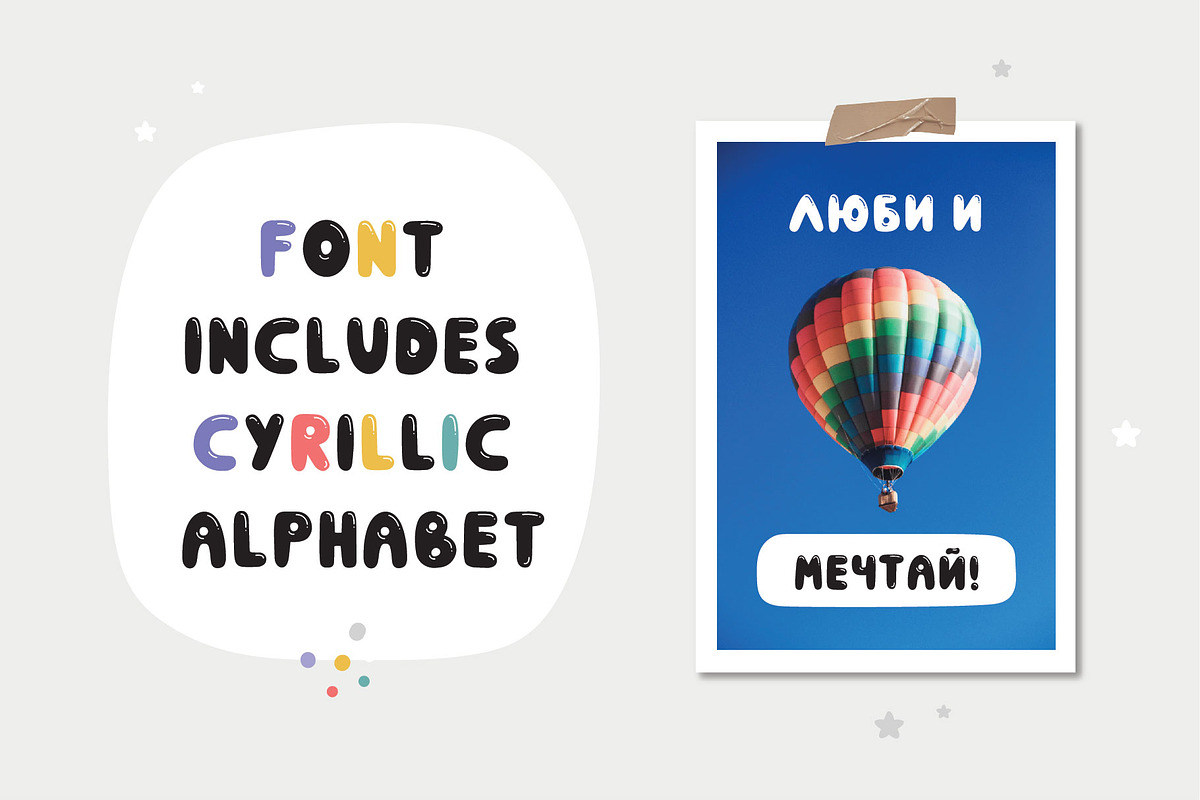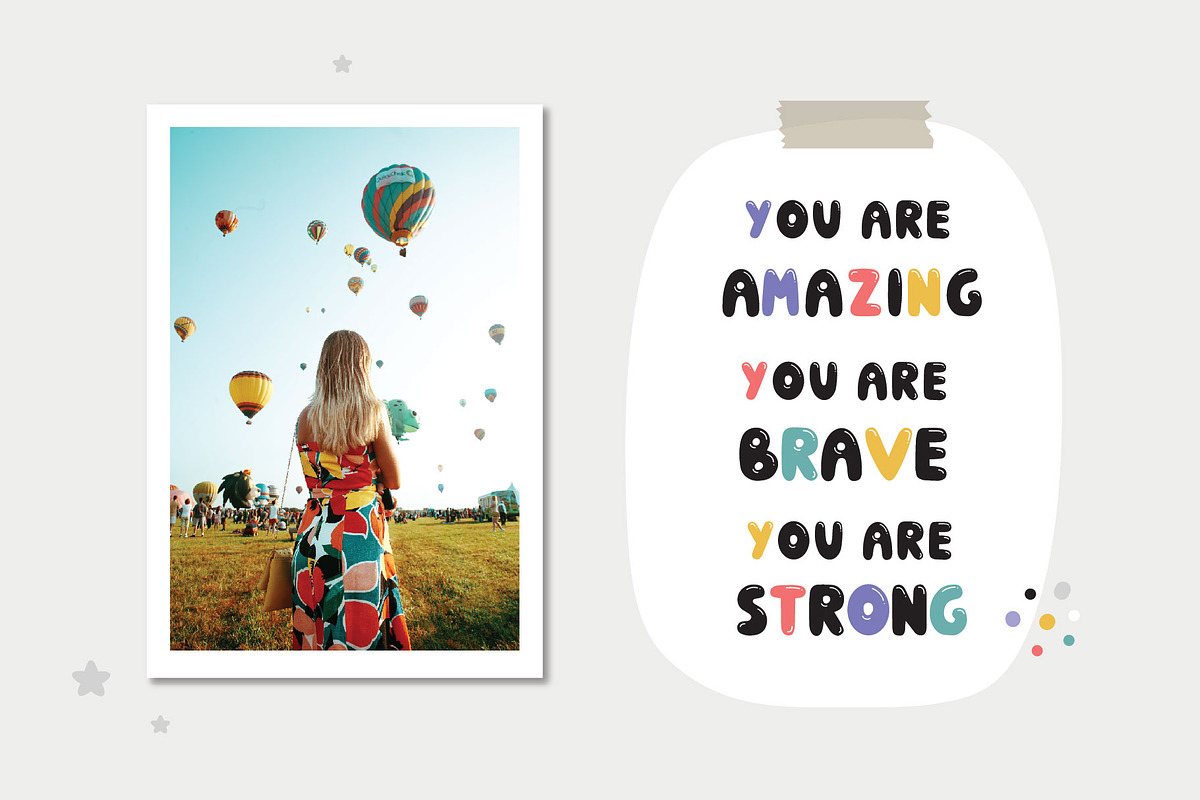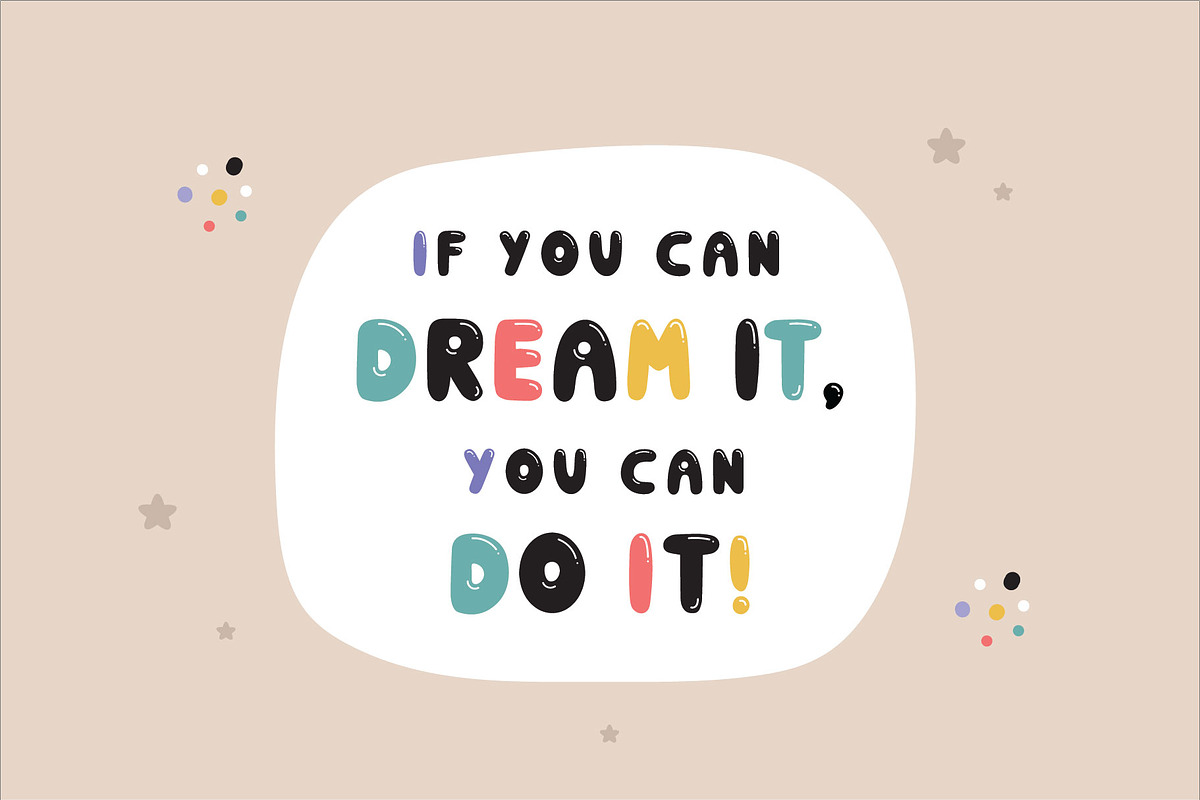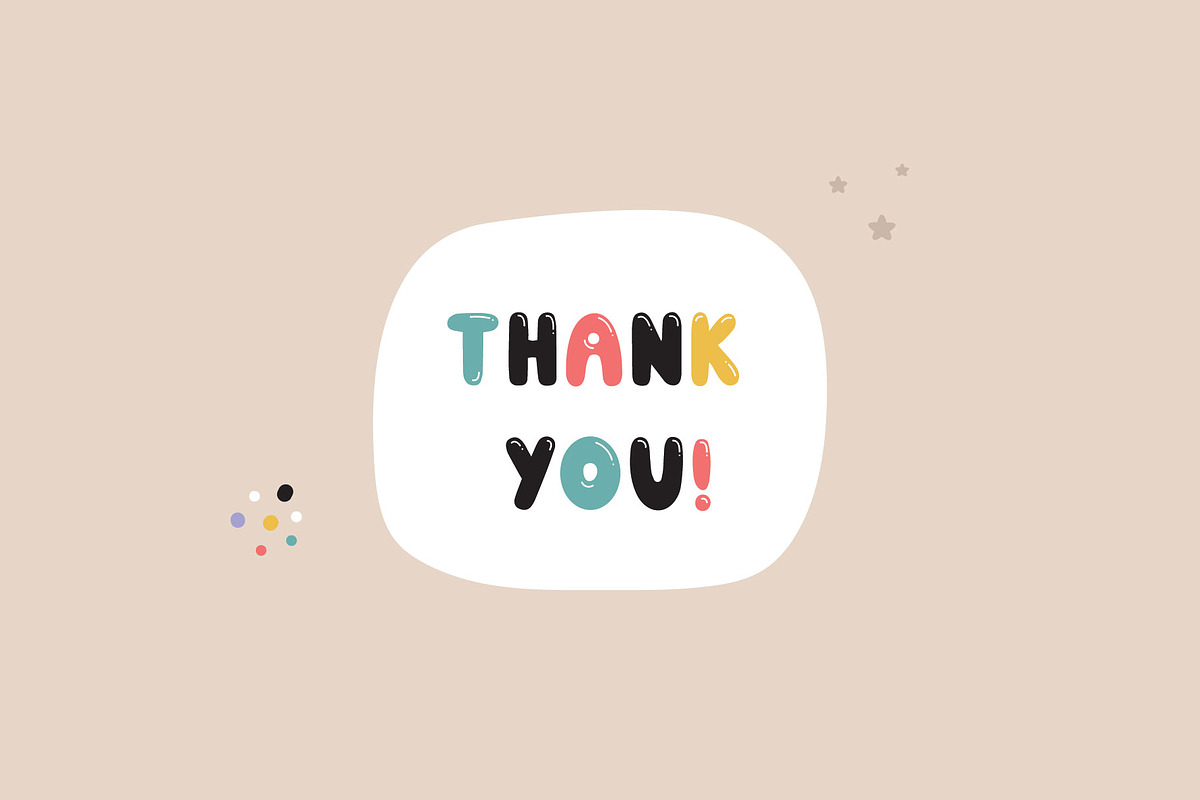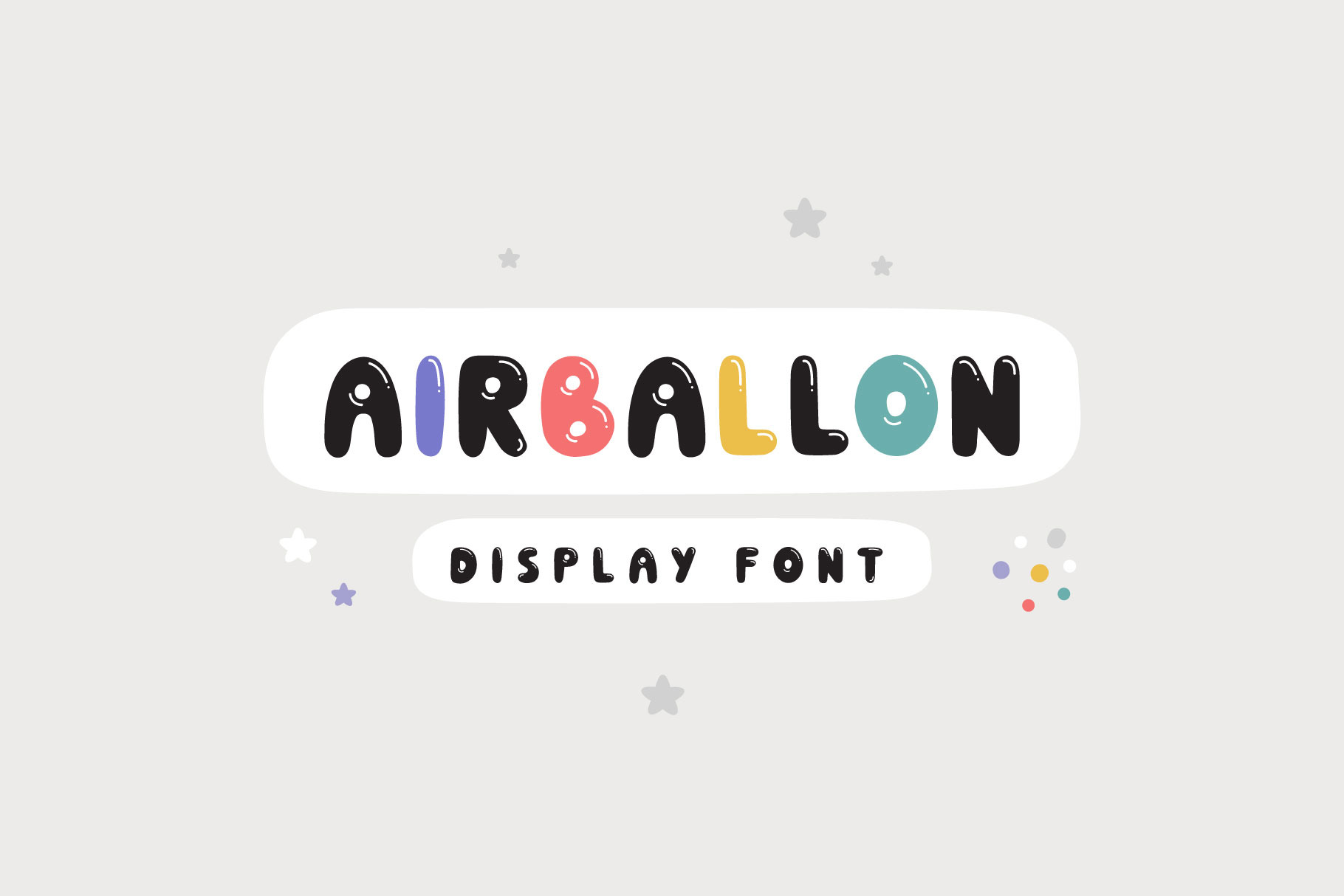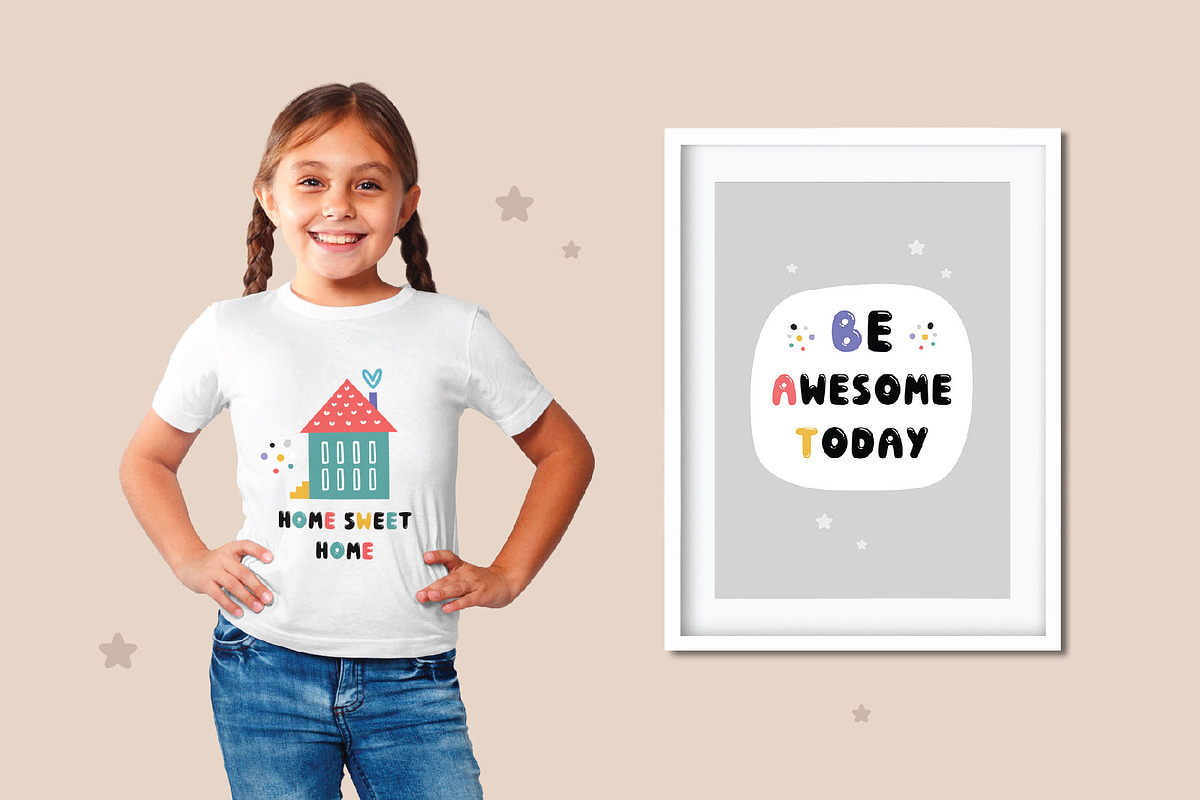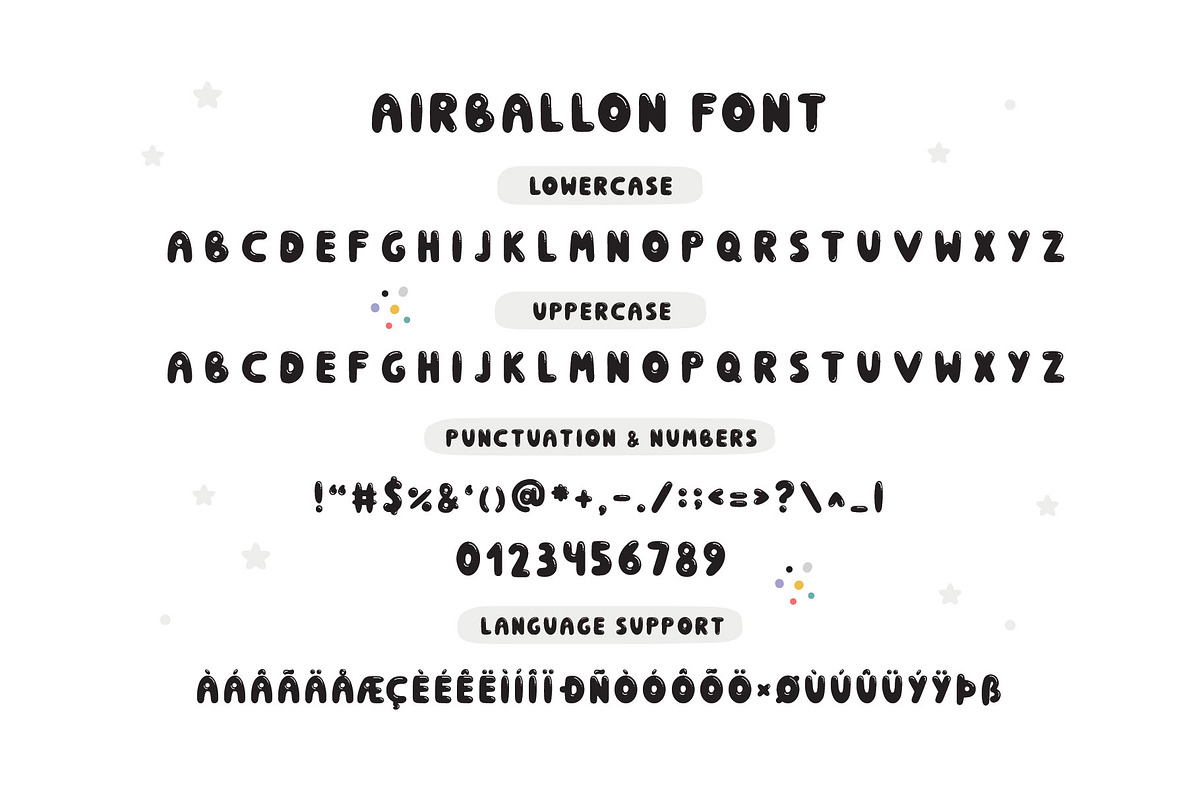
Airballoon Display Font
Introducing a new fun display font - Airballoon!
This is a cute kids handwritten font that would be perfect for Comic, books, greeting cards, toys, posters, baby clothing, picture books or anything that requires a fun and happiness look! The font also includes the Cyrillic alphabet. Create!